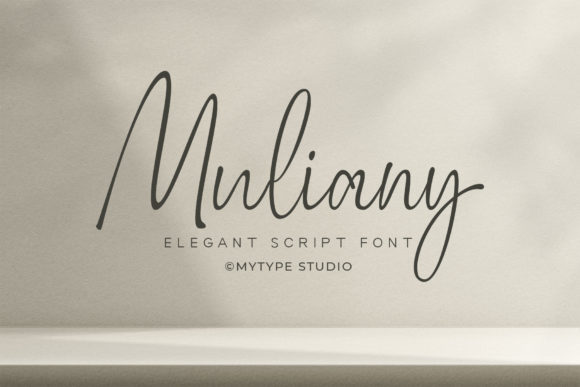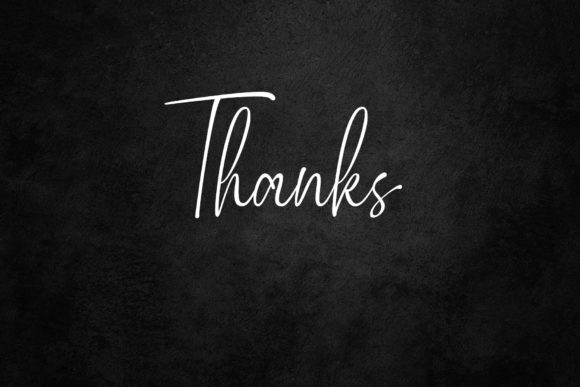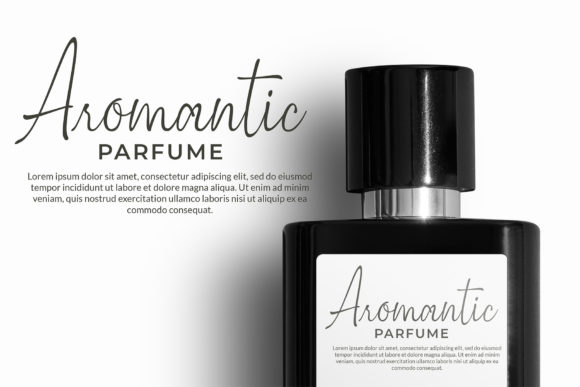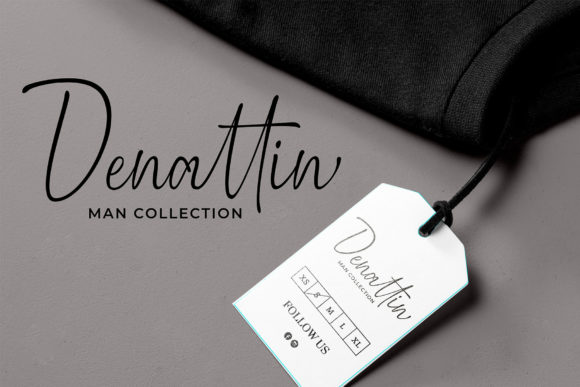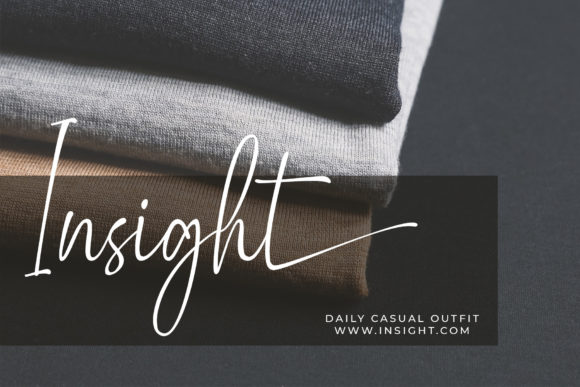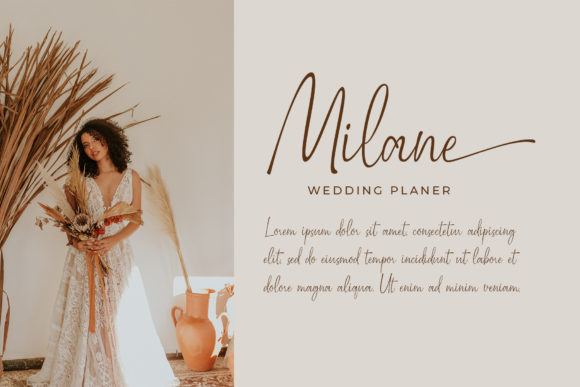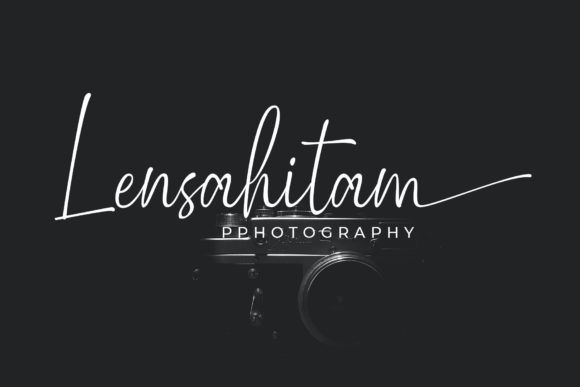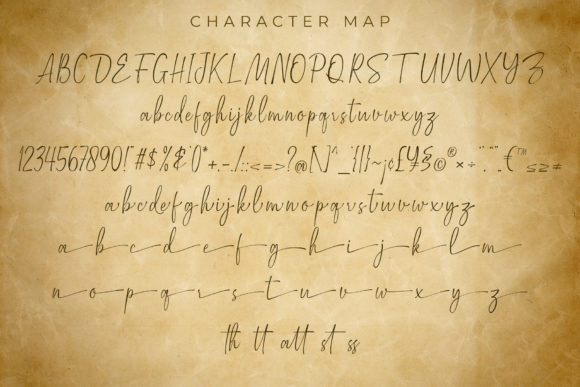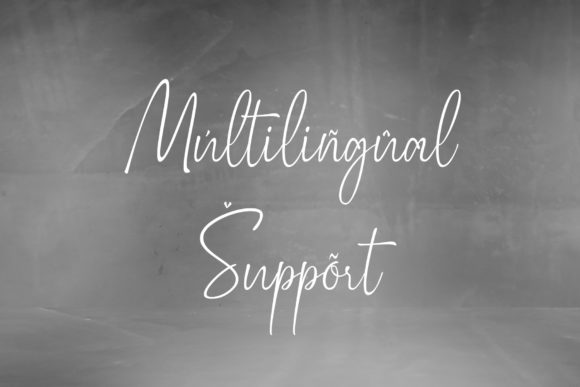
Muliany Font
About Muliany Font
Muliany is a handwriting collection font with natural movement that will make your project look elegant, classy, and beautiful. Muliany is perfect for branding projects, logos, wedding designs, social media posts, advertisements, product packaging, product designs, label, photography, watermark, invitation, stationery, and other projects.